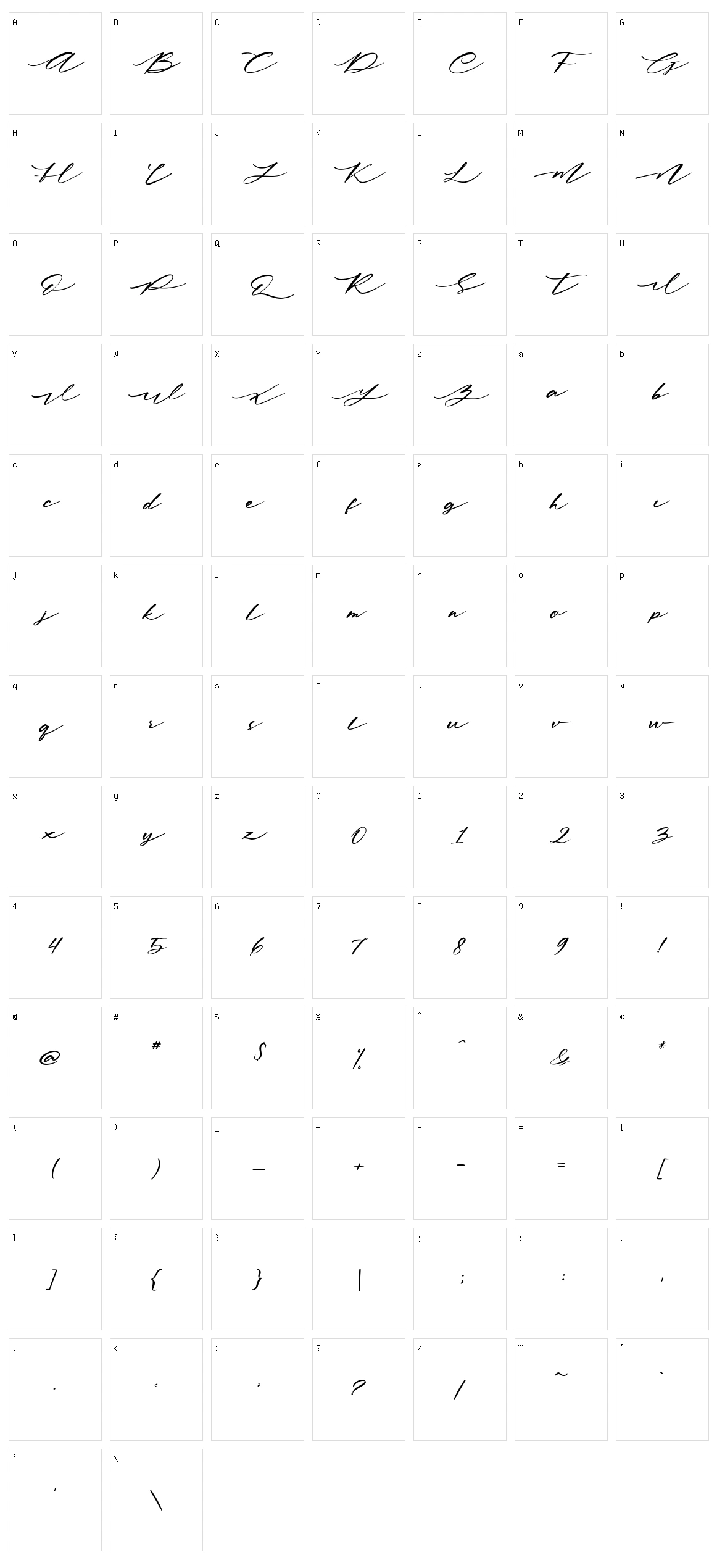
The free font Yearling Spirit is carefully designed by Cat.B, showcasing a thoughtful balance of creativity and usability and falls under the Script font style. When you download the ZIP file, it contains only 35.65 KB of font files, making it lightweight and quick to download. Please review the license details below to understand permitted usage and distribution rights. If license information is not available, we recommend using this font for personal projects only or contacting the author directly for commercial usage permissions.